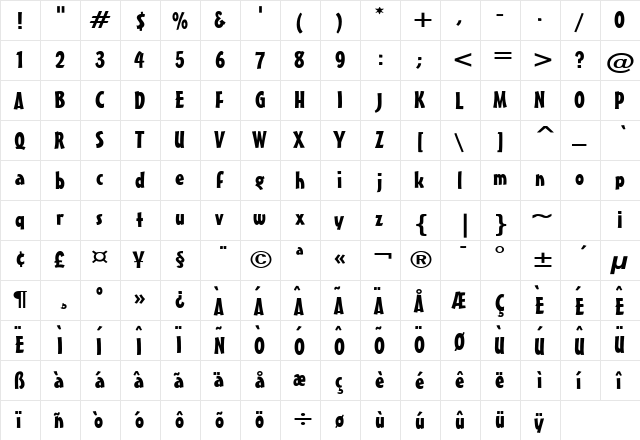
Massey Wide Normal
Design Context for Massey Wide Typeface
Massey Wide is a composed and adaptable typeface that performs quietly and consistently across a wide range of design contexts.